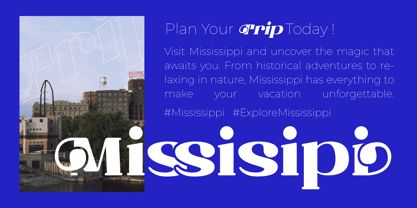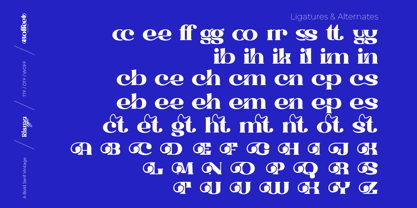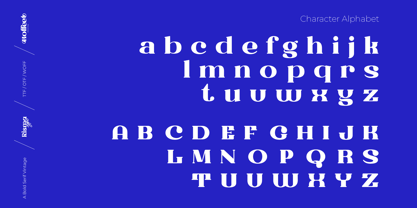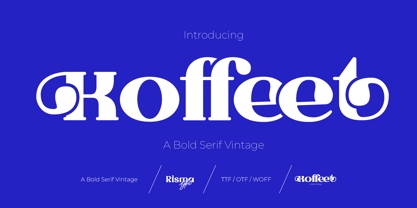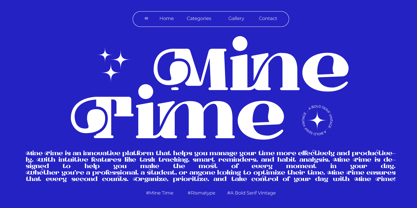
Koffeet
by Risma Type
The Koffeet Font Family was designed by Risma Mulyasari and published by Risma Type. Koffeet contains 2 styles and family package options.
Koffeet: A Bold Serif Vintage Font
Bold, timeless, and exuding vintage charm, Koffeet is a serif font designed to evoke a sense of nostalgia while maintaining a modern edge. With its robust strokes, elegant serifs, and subtle distressed textures, this font captures the essence of classic typography with a contemporary twist. Perfect for designs that require a touch of sophistication and character, Koffeet is ideal for branding, packaging, editorial design, or any project that aims to blend the old-world charm with a bold, confident aesthetic.
Key Features:
• Bold serif style with vintage-inspired details
• Subtle distressed textures for an authentic, aged look
• Versatile for both print and digital media
• Perfect for branding, logos, packaging, and editorial design
• Multi-language support for global usability
Bring a touch of timeless elegance to your designs with Koffeet – where boldness meets vintage allure!
About Risma Type
Risma Type is a font design studio based in West Java, specializing in creating distinctive typefaces with both character and functionality. Founded by a stay-at-home mother with a deep passion for typography, every creation reflects dedication, artistry, and genuine love for design. At Risma Type, we believe every letter carries its own soul, combining aesthetics and usability to convey emotion, story, and identity. Through a modern approach and meticulous attention to detail, we craft fonts that are not only visually appealing but also effortless to use. Each typeface is created with heart and purpose, empowering designers to express their ideas with confidence, freedom, and meaning.